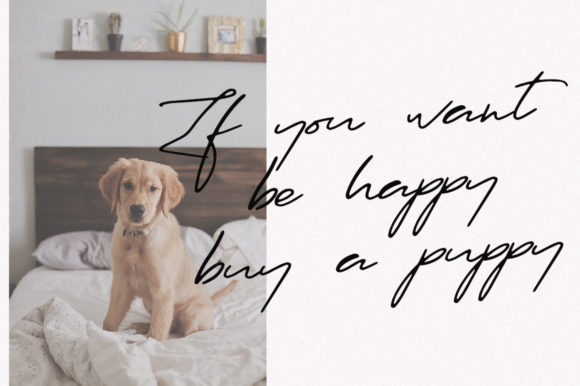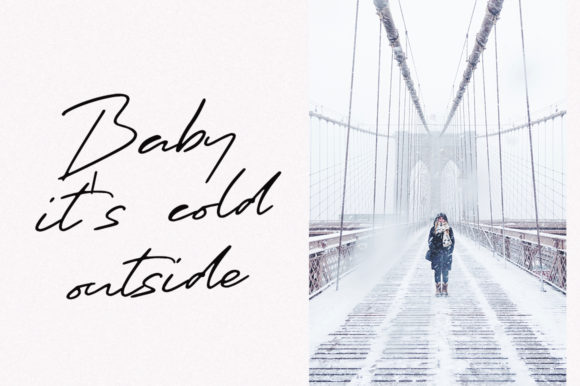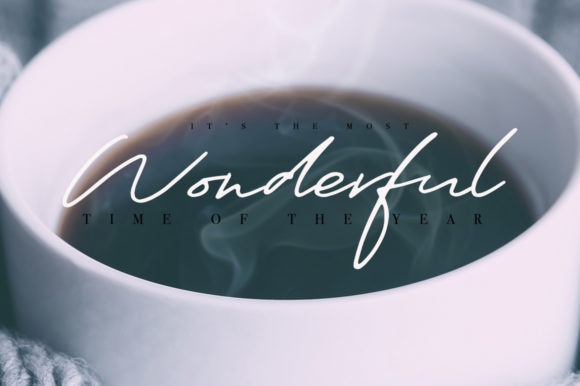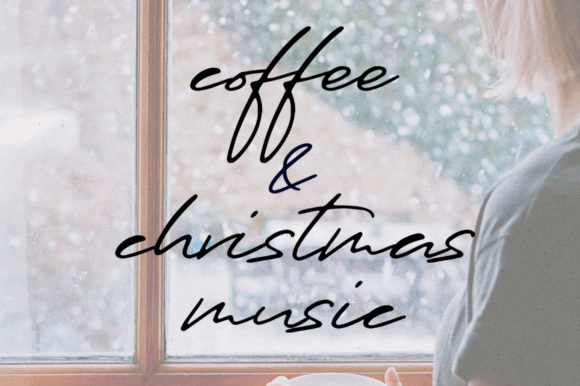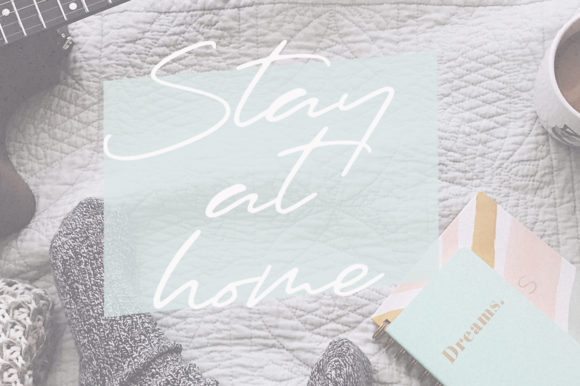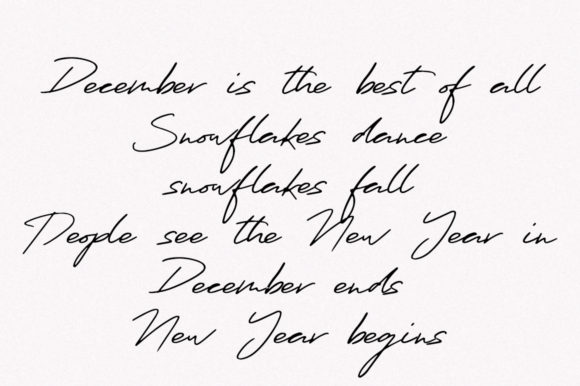
Introduction to Ramona Font
Ramona is a gorgeous handwritten font.
It will add a unique and elegant touch to any crafting project .
Key Features of Ramona Font
Why Choose Ramona Font?
Ramona Font offers exceptional quality and versatility, making it a valuable addition to your design toolkit. Whether you’re creating for personal projects or commercial use, Ramona Font delivers professional results.